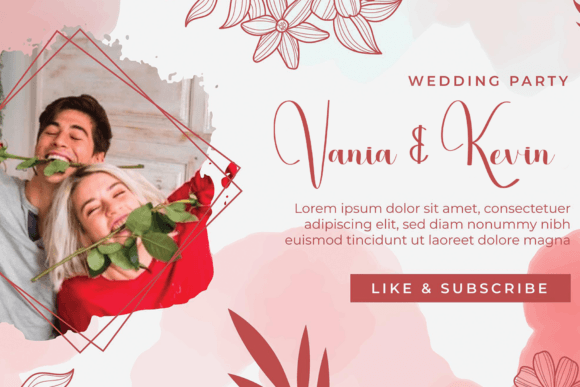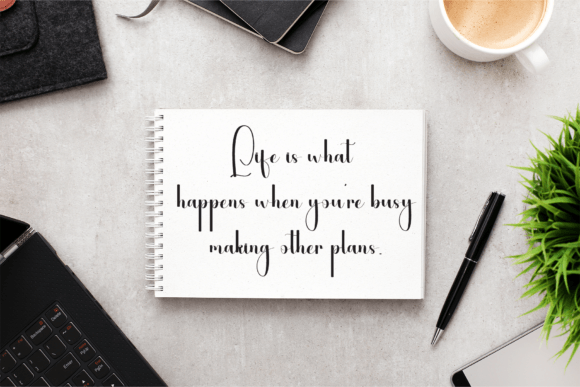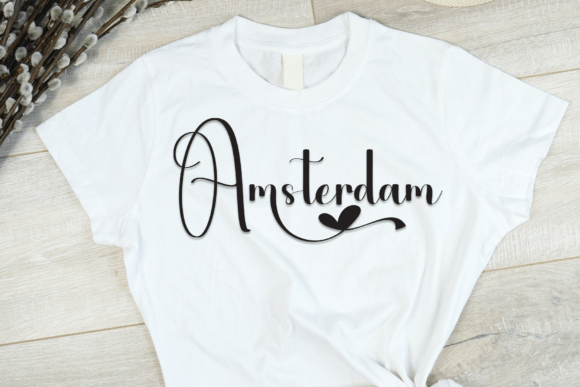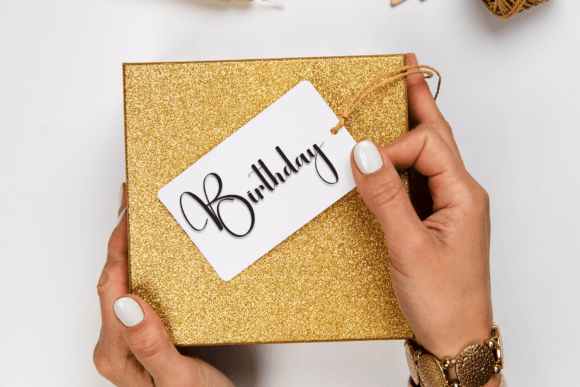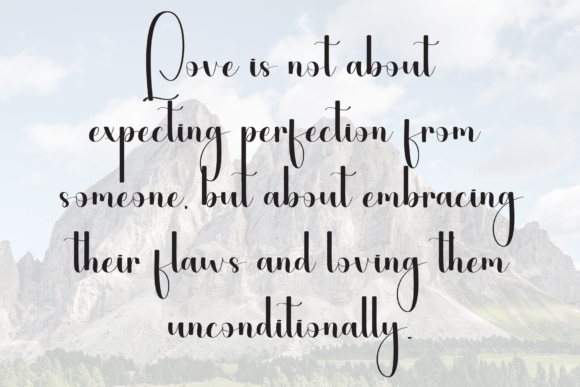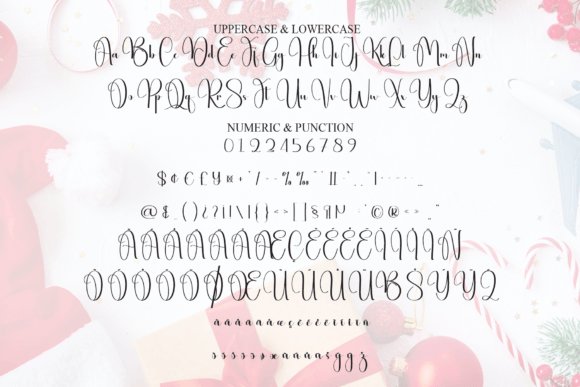
The Magic of Christmas Font: Elevate Your Designs with Festive Flair
Ah, the joy of designing during the holiday season! π I still remember the year I was tasked with creating a Christmas-themed wedding invitation. My client wanted something elegant, yet playful, and I was determined to deliver. As I scrolled through font after font, I couldn’t help but feel like something was missing. That’s when I stumbled upon the Christmas Font, and it was love at first sight! β¨
So, what makes this font so special? Let’s dive into the good stuff! π
- β¨ Versatility: Perfect for wall displays, wedding invitations, social media post logos, advertisements, product packaging, and more!
Of course, no font is perfect, and there are a few minor quirks to consider:
- π€ Learning Curve: With so many features and glyphs to explore, it might take some time to get familiar with the font.
The Story Behind Christmas Font
The Christmas Font was created by a team of designers who wanted to capture the magic of the holiday season in a single font. Inspired by vintage holiday cards, festive decorations, and the warmth of the season, they crafted a font that’s both elegant and playful. The result is a versatile font that can be used in a variety of design projects, from wedding invitations to social media graphics.